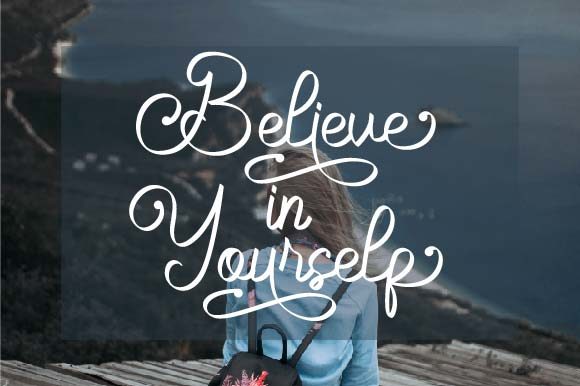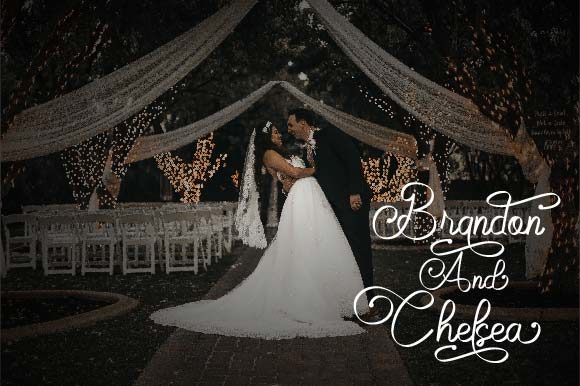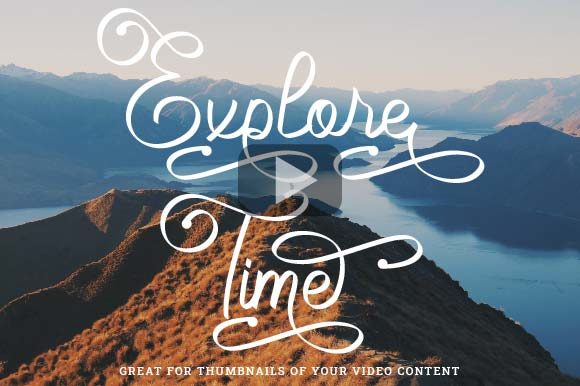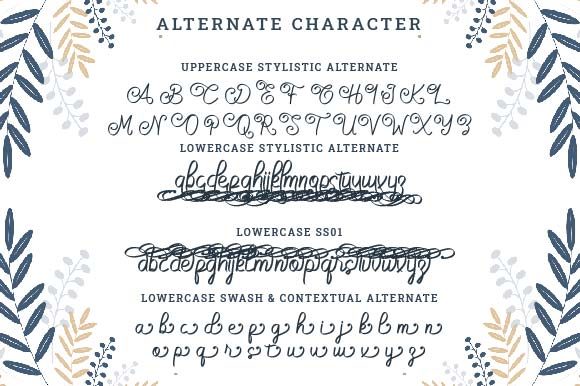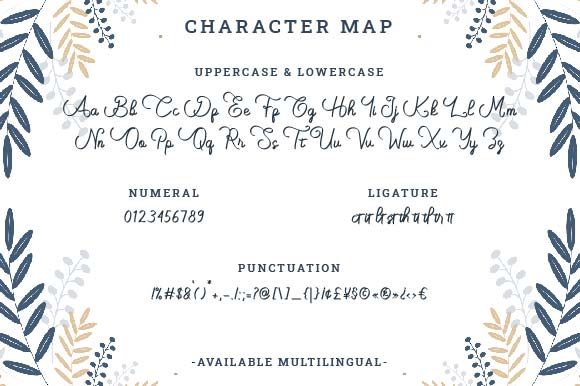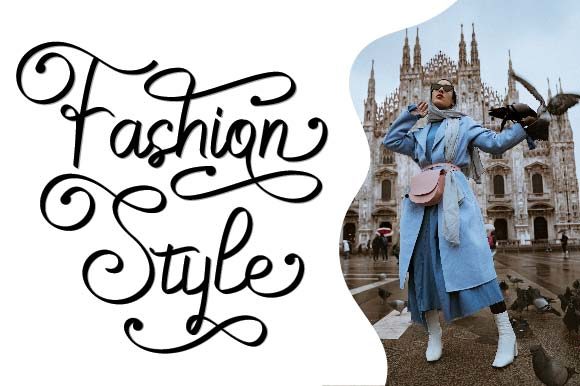
Introduction to Savattera Font
Savattera is a beautiful script font with a charming look.
It will add a sophisticated touch to your designs .
Key Features of Savattera Font
Why Choose Savattera Font?